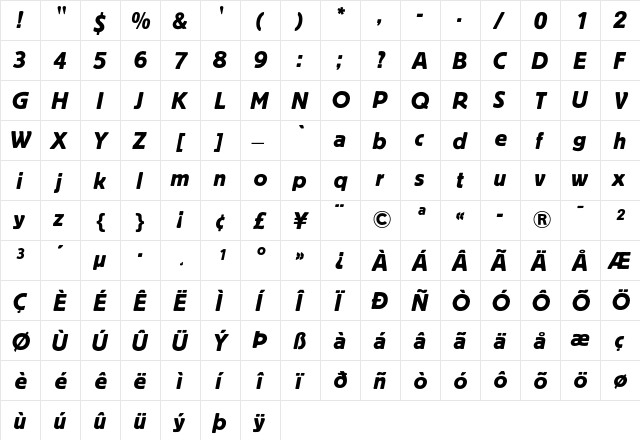
Block Berthold Italic
Design Context for Block Berthold Typeface
Block Berthold is a composed and adaptable typeface that performs quietly and consistently across a wide range of design contexts. The slanted form adds forward momentum and visual energy.
Pro Tip: Try Block Berthold for annotation and caption copy alongside an upright companion — the contrast in angle creates a dynamic but ordered typographic system.